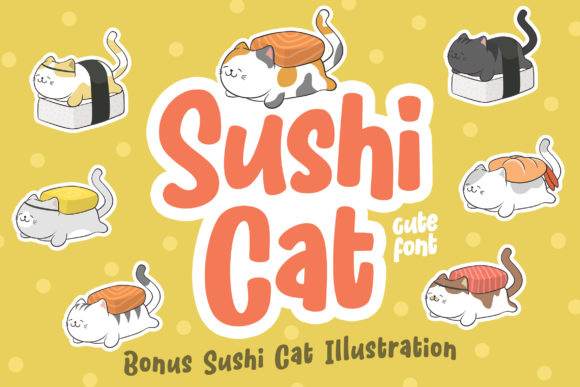
Get ready to embark on a delightful journey with Sushi Cat Font, a display font that captures the essence of joy and playfulness. Let your creativity dance with this enchanting font, transforming your crafting endeavors into vibrant masterpieces. Picture the adorable Sushi-Cats gracefully twirling across your posters, greeting cards, digital designs, and much more.
Unleash laughter and smiles with each stroke of Sushi Cat Font, attracting attention and spreading joy wherever it appears. Whether you're creating invitations for unforgettable events, designing quirky flyers, or adding a touch of whimsy to your social media posts, this font will leave a lasting impression. Its eye-catching design will captivate your audience, turning your words into works of art.
Immerse yourself in the realm of Sushi Cat Font, where every character dances hand in hand, creating a harmonious rhythm that captivates the senses. Its expressive nature makes it ideal for conveying messages of love, friendship, and playful fun. Whether you're crafting personalized gifts, creating vibrant stickers, or designing eye-catching logos, Sushi Cat Font will add a touch of magic that elevates your designs to new heights.
With Sushi Cat Font by Orenari, your imagination becomes the canvas, and your designs transform into captivating stories. Let this delightful font be your artistic accomplice, bringing a smile to your face and leaving an everlasting impression on those who behold your creations.